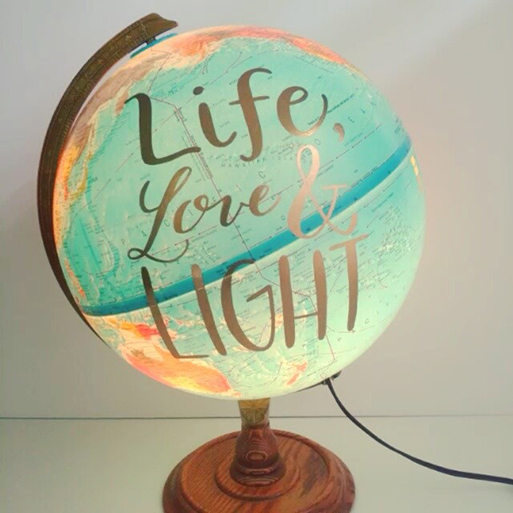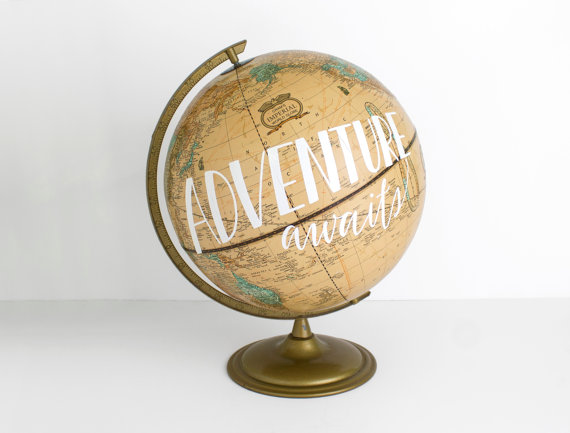
This is a romantic way to see the world
These beauties are the perfect gift for your friends, especially if they love travelling. World Globes with lovely type on them, that aspire a creative twist and make you see the world from a romantic point of view. Try to place them on your desk, next to your morning coffee. They will definitely inspire you for your next trip. Enjoy: